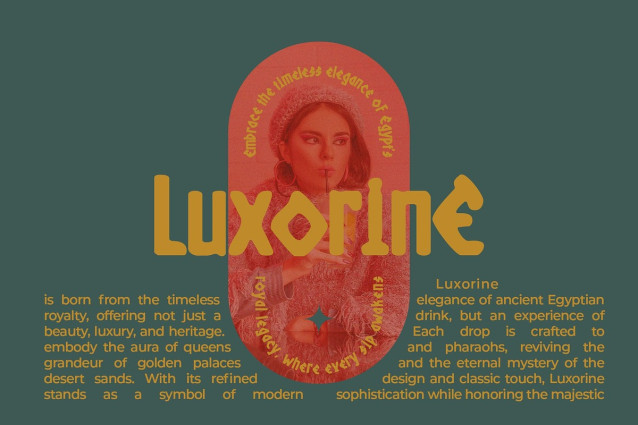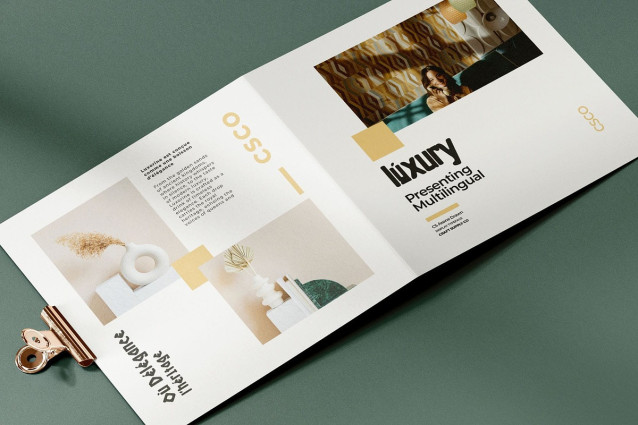
CS Axone Drawn Font
CS Axone Drawn takes inspiration from the power and beauty of ancient stone carvings, reflecting the enduring legacy of Greek lettering. Each character carries a sculptural quality, echoing the precision and permanence of inscriptions etched in stone. This connection to history infuses the font with a sense of strength, stability, and historical beauty.
Classic Form with Drawn Texture While rooted in classical Greek forms, this font introduces a drawn texture that softens its appearance and makes it approachable for modern usage. The textured finish adds a handcrafted quality, blending the authority of tradition with the warmth of artistry. This balance ensures the font feels both historical and contemporary, ideal for designers seeking authenticity with a creative edge.
Perfect for Editorials and Branding From editorial layouts and cultural projects to branding that requires a sense of historical authority, this is font adapts with grace. Its sculptural letterforms convey sophistication, making it an excellent choice for book covers, logos, posters, and event materials. Whether you are designing for heritage themes or modern identities, this font brings depth and distinction.
A Timeless Design Companion This is more than just a historical revival it is a versatile typeface designed for timeless projects. Its Greek influence paired with expressive drawn texture allows it to shine in both formal and artistic contexts. Use it when you want your typography to speak with authenticity, cultural weight, and handcrafted charm.